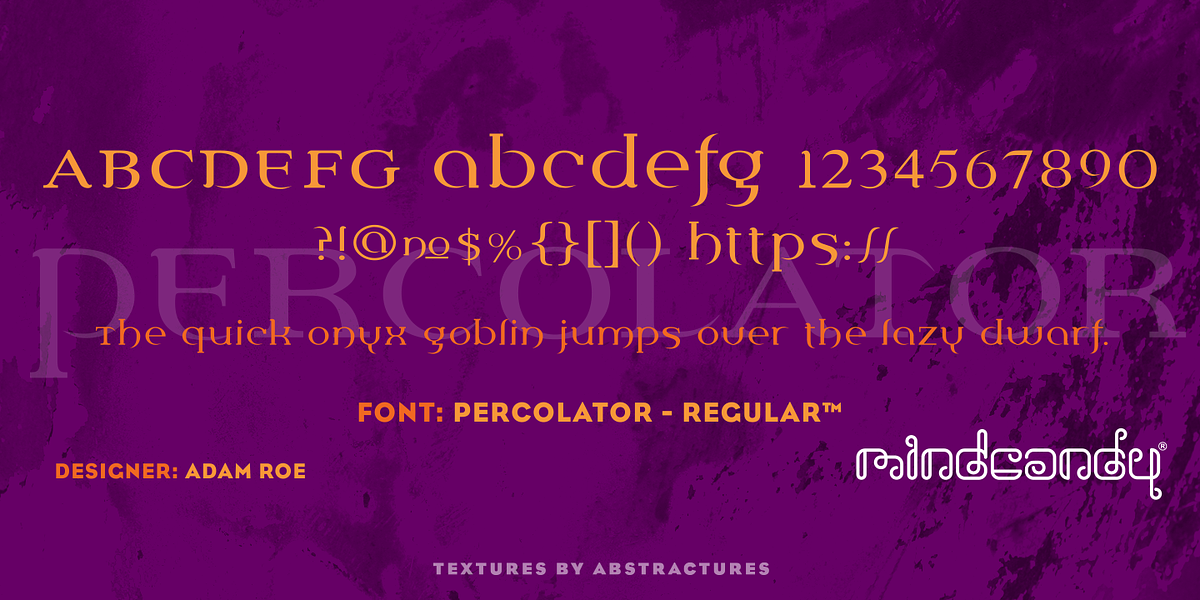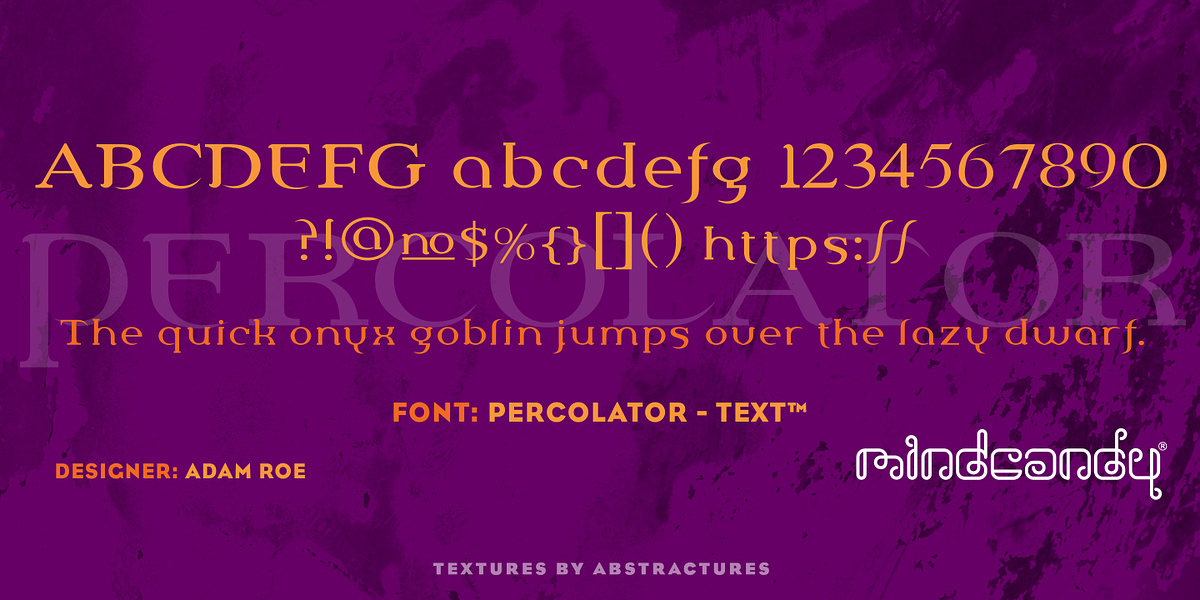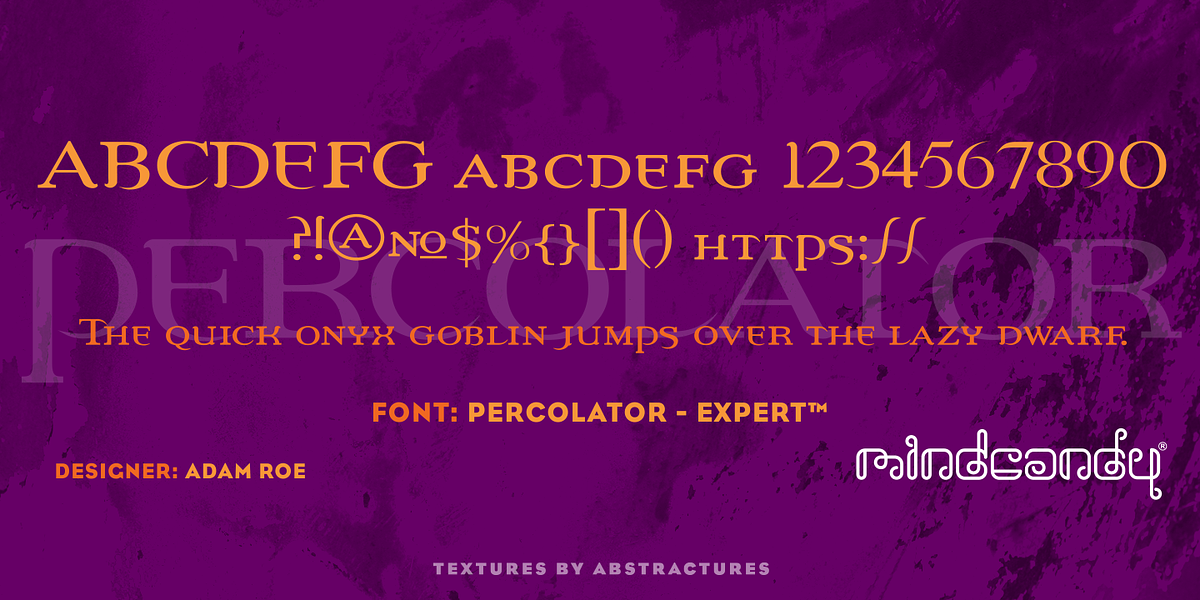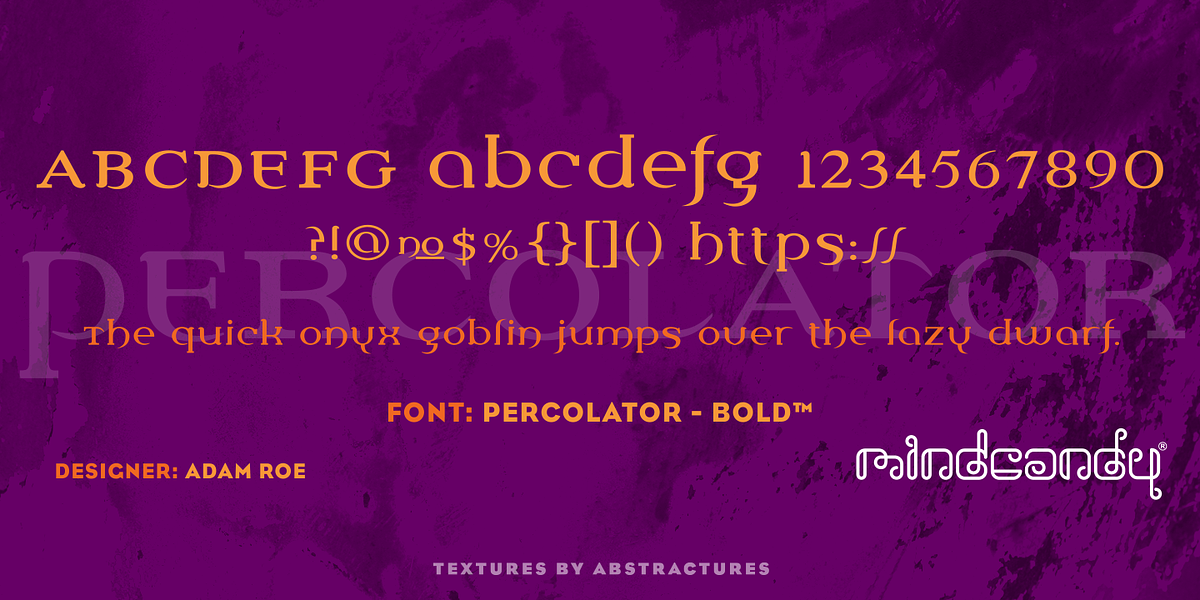
Percolator™
This font is designed by Adam Roe and evokes a sci-fi aesthetic. It's categorized as a display novelty font, making it suitable for grabbing attention in headlines or branding elements.